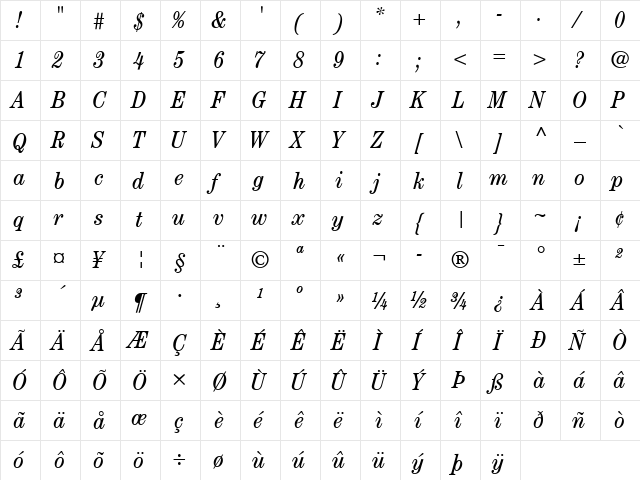
ITCCentury LT BookCond Italic Font Preview
Design Context for ITCCentury LT BookCond Typeface
ITCCentury LT BookCond is a composed and adaptable typeface that performs quietly and consistently across a wide range of design contexts. Its italic angle brings a sense of urgency and motion to the letterforms. The delicate stroke weight brings airiness and refinement to layouts. Its narrow stance lets it pack a punch even in space-constrained designs.
Pro Tip: Use ITCCentury LT BookCond for emphasis, pull quotes, and subheadings where its slanted energy can add rhythm to the layout.